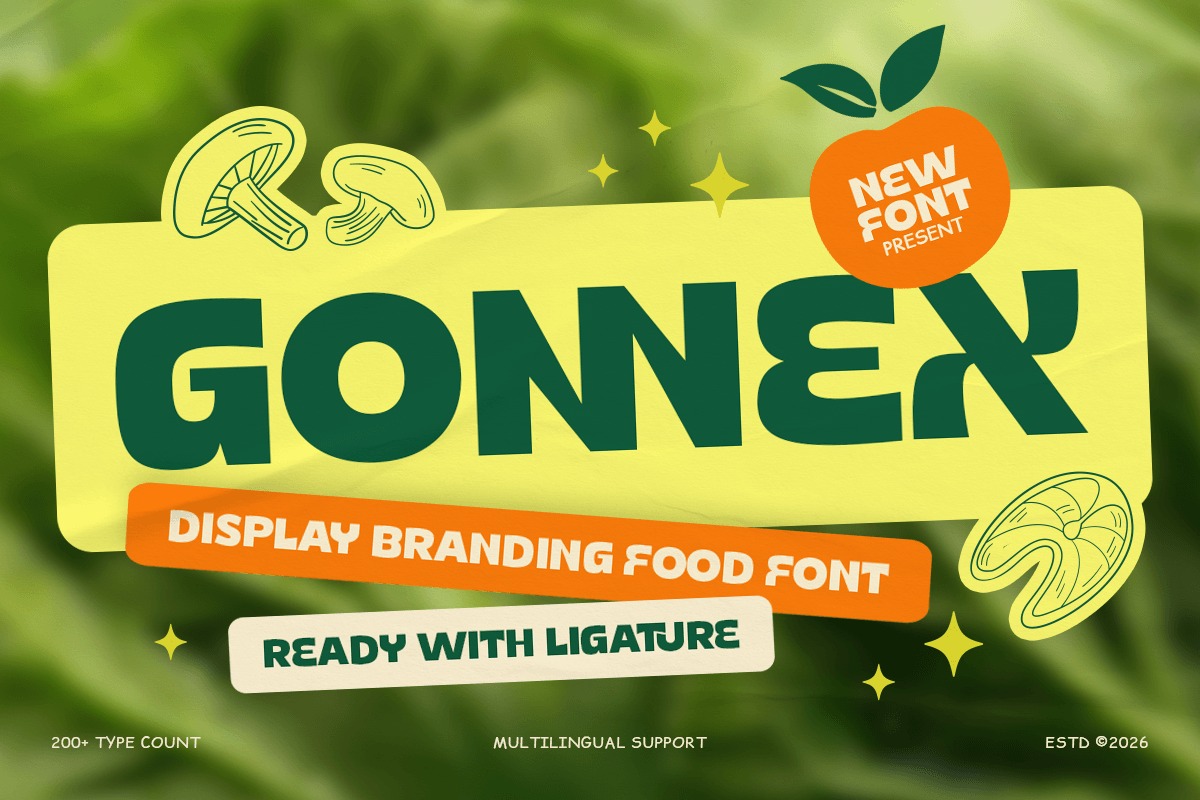
Gonnex – Bold Sans Serif Font
Gonnex – Bold Sans Serif Font is a professionally designed typeface that delivers clarity, structure, and consistent performance across various design applications. Gonnex is a bold display food font designed to create a strong, appetizing, and eye-catching visual presence. Featuring thick letterforms, solid structure, and a modern playful style, Gonnex is perfect for restaurant branding, food packaging, menus, street food visuals, and culinary design projects.
Combining bold typography with a fun and flavorful character, Gonnex delivers a powerful and friendly identity. Its heavy structure ensures excellent readability while maintaining a vibrant and engaging look, making it ideal for cafes, fast food brands, snack packaging, and promotional materials.